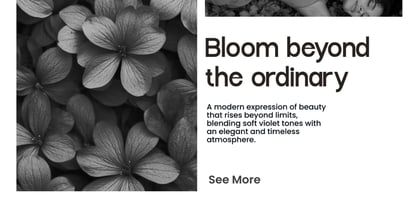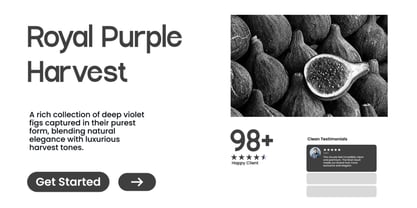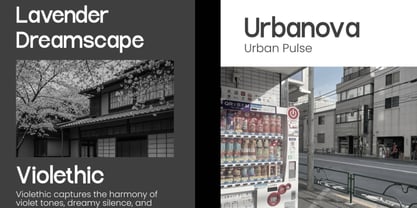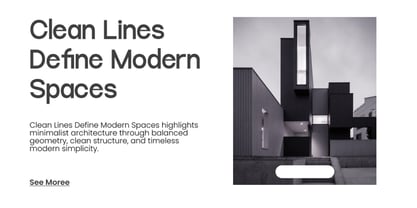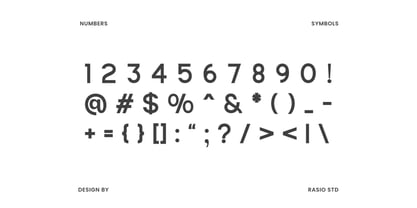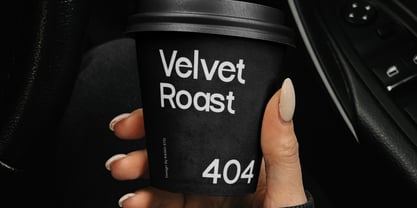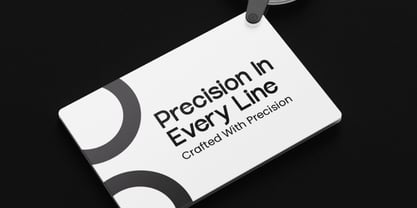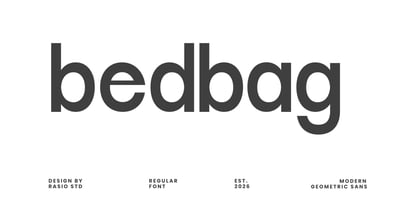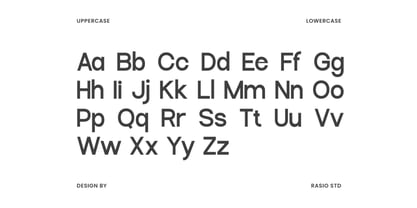
Bedbag
by Rasio Studio
The Bedbag Font Family was designed by Fajar Indra and published by Rasio Studio. Bedbag contains 1 styles. More about this family
Bedbag is a clean modern geometric sans serif font crafted with balanced proportions, smooth curves, and minimalist structure for contemporary visual design. Featuring a neutral geometric appearance with excellent readability, this typeface delivers a professional and refined aesthetic suitable for both display and editorial purposes.
Relevance & Use Cases is highly relevant for modern branding systems, architecture presentations, editorial layouts, UI/UX projects, website headers, minimalist posters, corporate identity designs, and clean visual communication. Its geometric structure and refined readability make it effective for professional marketing materials, business presentations.
Designers: Fajar Indra
Current Foundry: Rasio Studio